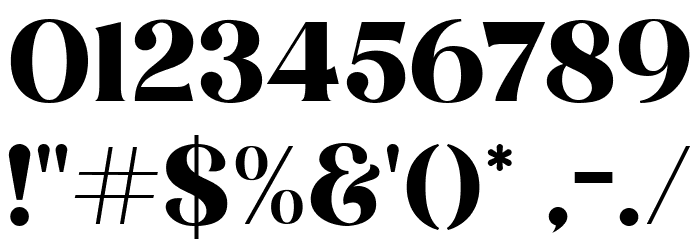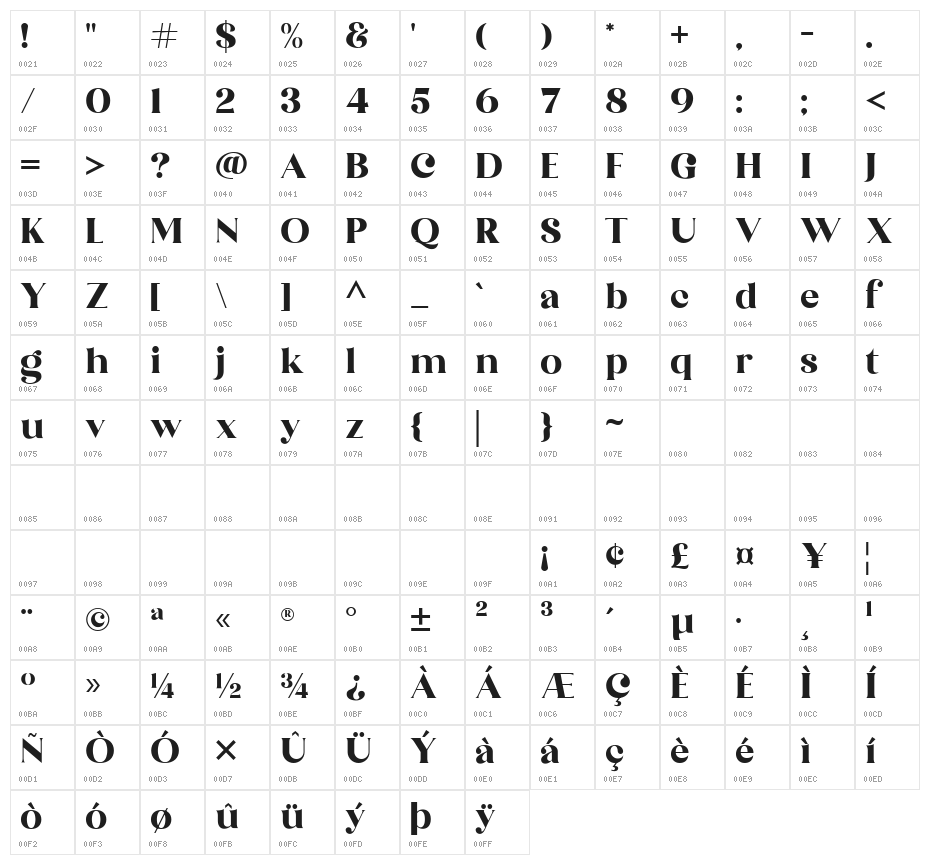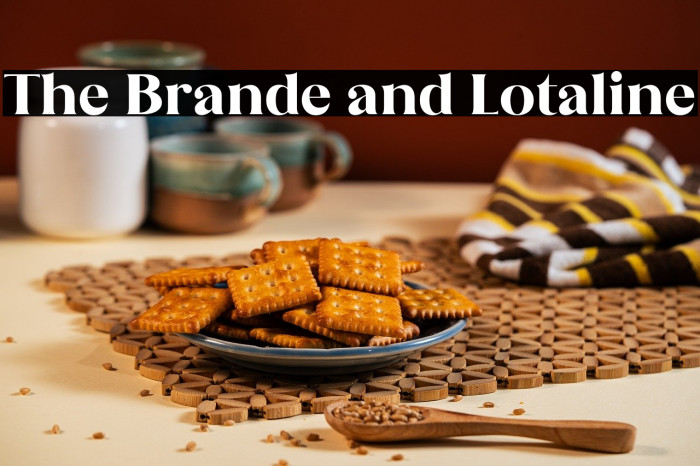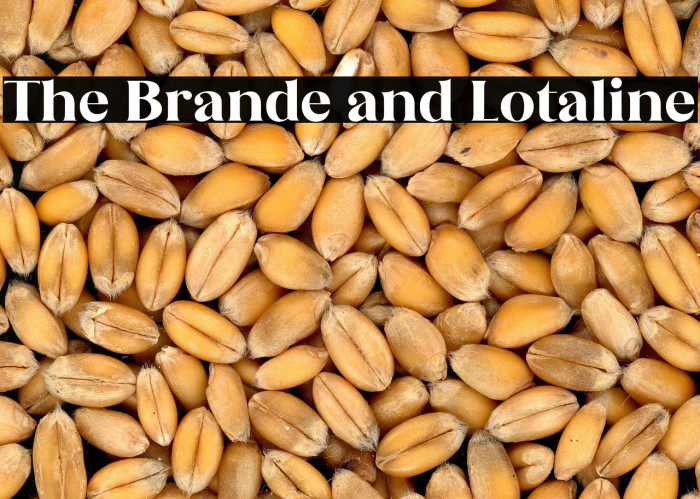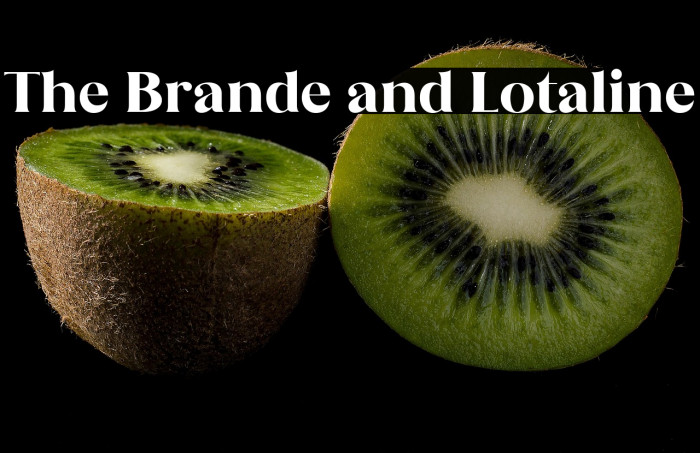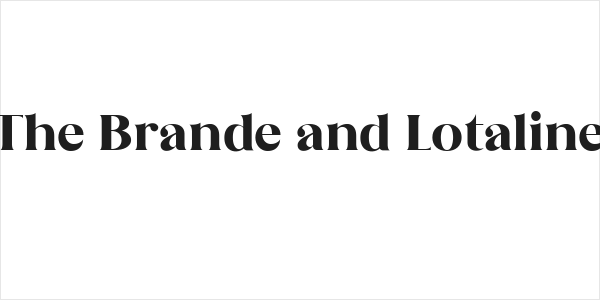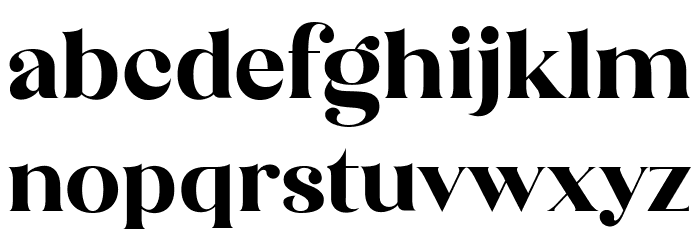
The Brande and Lotaline Font
The Brande and Lotaline Description
This font features a bold and striking serif design, characterized by its thick and thin stroke contrasts that create a dramatic and elegant appearance. The uppercase letters are particularly prominent, with sharp serifs and a slightly condensed form that adds to the overall sophistication. The lowercase letters maintain the same level of contrast, with rounded forms that balance the sharpness of the serifs. Numbers are equally bold, ensuring visibility and impact. Special characters are designed with the same attention to detail, making them suitable for a variety of uses. The font's overall style is both classic and modern, making it versatile for different design needs.